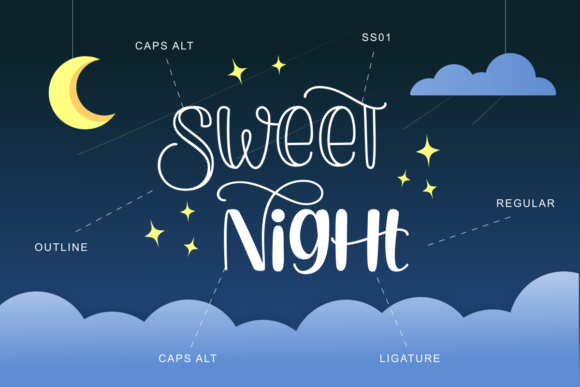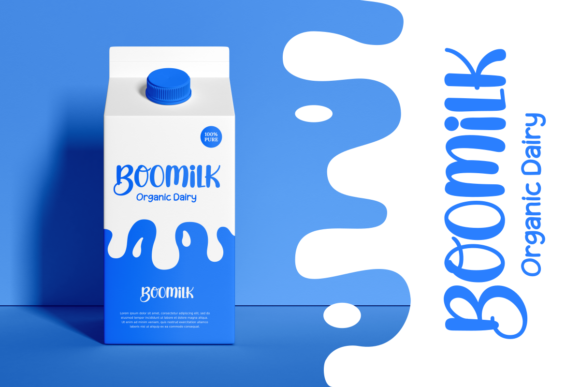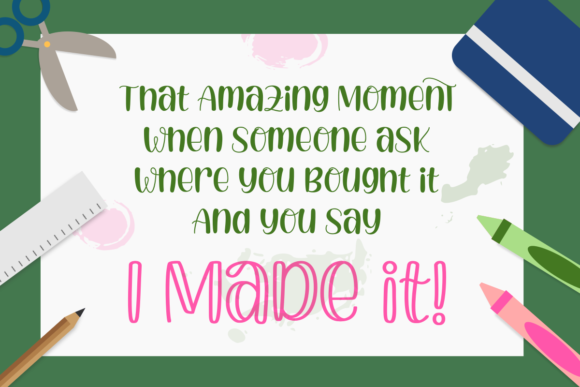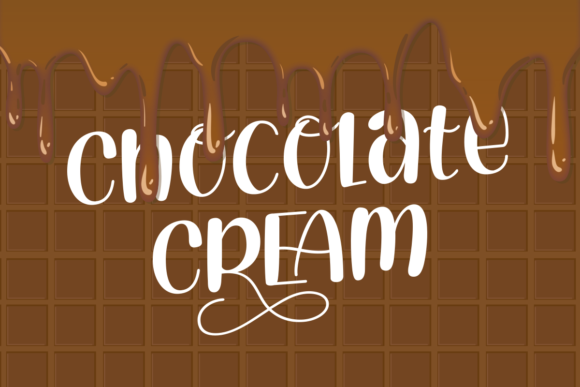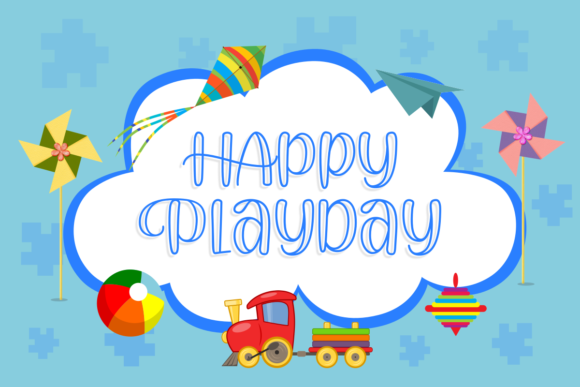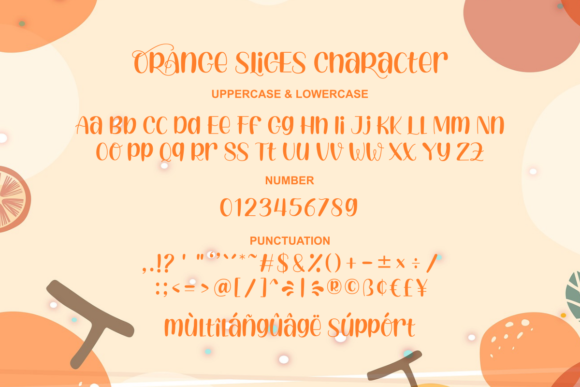
Introduction to Orange Slices Font
You know that moment when you’re working on a creative project, and you just can’t seem to find the right touch? You’ve got your colors, your shapes, your typography – but something’s still missing. That’s where Orange Slices Font comes in – a free, high-quality display font that’s guaranteed to add a dash of whimsy to your designs.
As a designer, you’re always on the lookout for that special something that sets your work apart. And with Orange Slices Font, you’ll find it. This cute and quirky font is perfect for adding a playful touch to your designs, whether you’re working on a children’s book, a wedding invitation, or a social media campaign. With a transparent background, you can easily place it over any image or design element to create a cohesive look.
Key Features of Orange Slices Font
- Unique Hand-Drawn Design: Orange Slices Font features a distinctive hand-drawn style that adds a creative touch to any project.
- High-Quality Design Resource: This font is a valuable addition to any designer’s collection, suitable for a wide range of creative projects.
- Transparent Background: The font comes with a transparent background, allowing for easy layering and customization in design projects.
- Pixel-Perfect Resolution: The font is designed to be pixel-perfect at 300 DPI, ensuring crisp and clear rendering in various resolutions.
- Perfect for Creative Projects: Orange Slices Font is ideal for use in creative projects, including branding, logos, and advertising materials.
Honest Review: Orange Slices Font
I recently came across the Orange Slices Font and I’m excited to share my thoughts on it. This font has been gaining popularity in the design community, and for good reason.
What works well: ✨ The font’s playful, handwritten feel makes it perfect for creative projects that require a personal touch. The high-quality design ensures that it looks great on a variety of backgrounds, including transparent backgrounds.
Some designers may find that the font’s casual, cursive style is too informal for certain projects. ⚠️ However, for those who want to add a touch of whimsy to their designs, Orange Slices Font is a great choice.
- Perfect for creative projects that require a personal touch
- Works well on transparent backgrounds
The Orange Slices Font is ideal for various design projects, including food blogs, recipe cards, and social media graphics. Its high-quality design and transparent background make it perfect for creating visually appealing and modern designs.
To get the most out of the Orange Slices Font, experiment with different font sizes, colors, and combinations. Use the font in conjunction with other design elements, such as images and graphics, to create a unique and eye-catching design.
Alternatives to Orange Slices Font
Pacifico is a beautiful, high-quality script font perfect for creative projects that require a touch of elegance and sophistication. It’s ideal for use in wedding invitations, greeting cards, and other design elements where a handwritten feel is desired. Unlike Orange Slices Font, Pacifico offers a more refined and delicate look, making it suitable for a wider range of design applications.
Great Vibes is a modern, sans-serif font that’s perfect for designers seeking a clean and minimalistic look. It’s ideal for use in web design, social media graphics, and other digital design elements where a bold and eye-catching font is needed. Compared to Orange Slices Font, Great Vibes offers a more modern and edgy feel, making it suitable for a variety of creative projects.